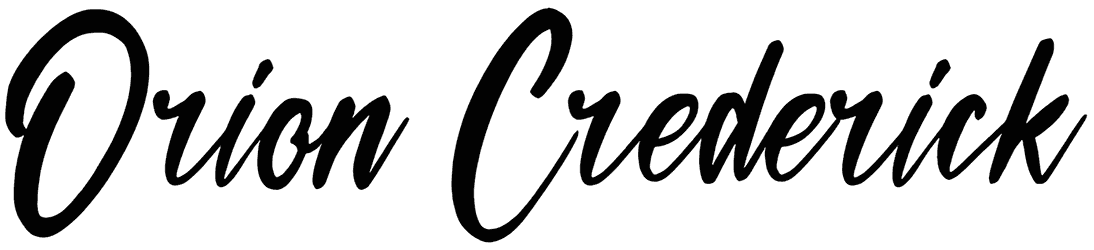
Orion Crederick Font
Orion Crederick font is a successful combination of hand-drawn lines and modern design principles, which, with its smooth lines and delicate curves, can add intricate details to your design projects.
This calligraphy font is perfect for creating wedding invitations, book covers, or logos for high-end brands. Its romantic and luxurious appearance can attract the attention of anyone who looks at it. So use the power of this timeless art and let your creativity shine with painting fonts.